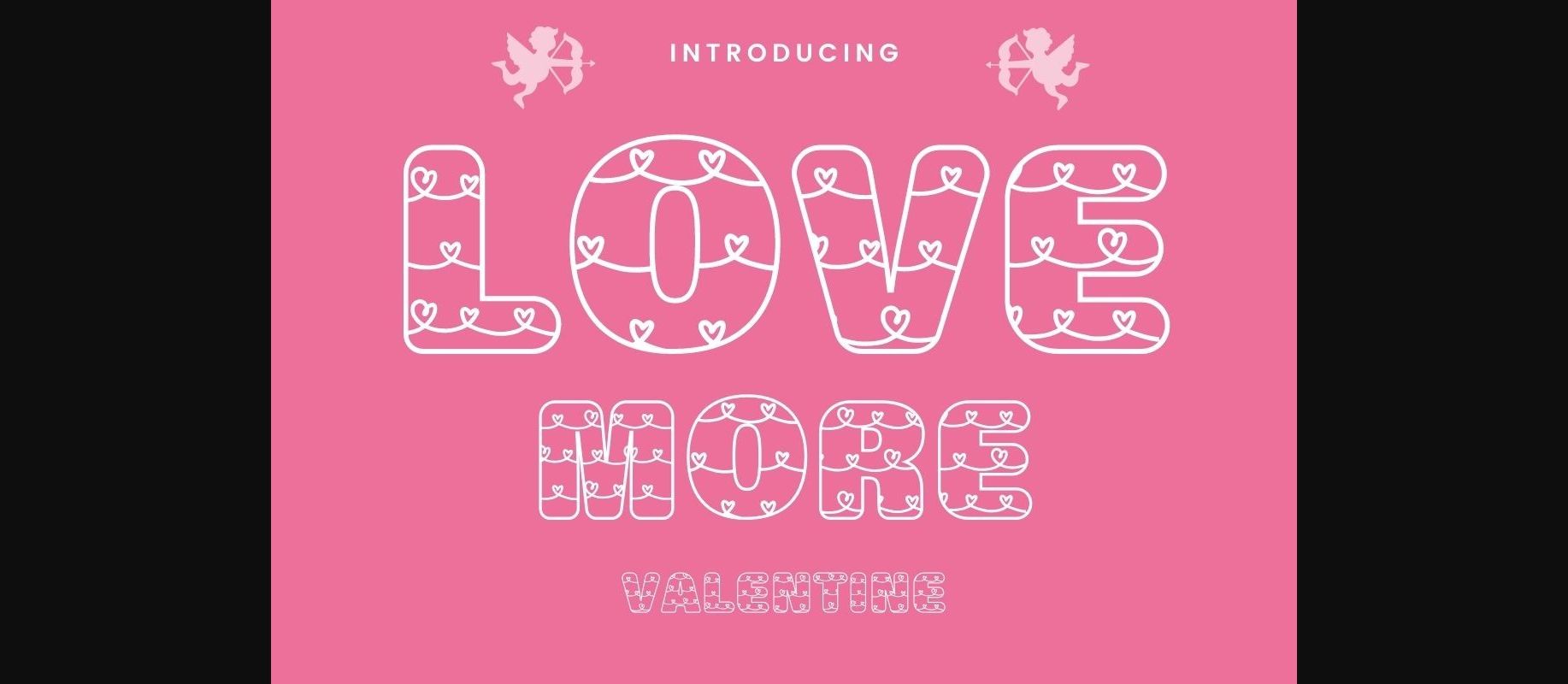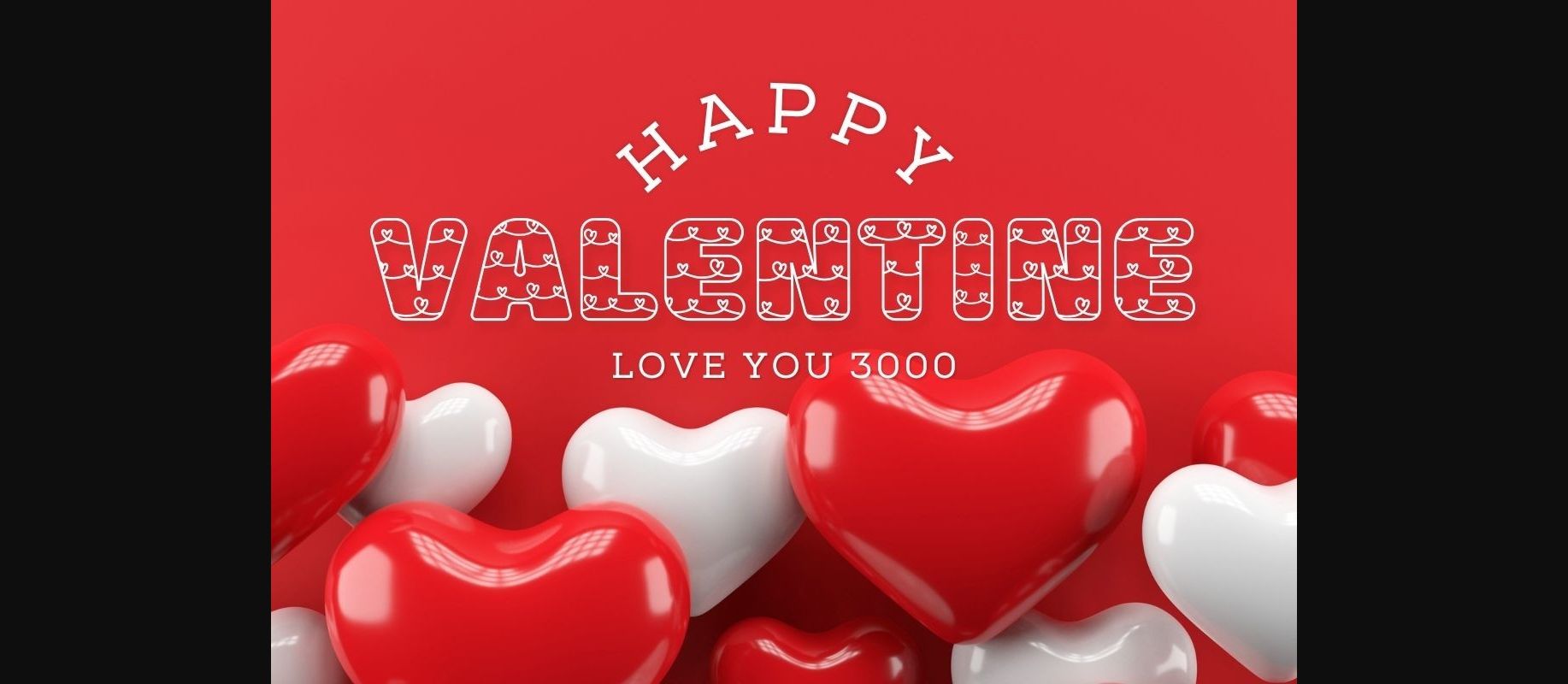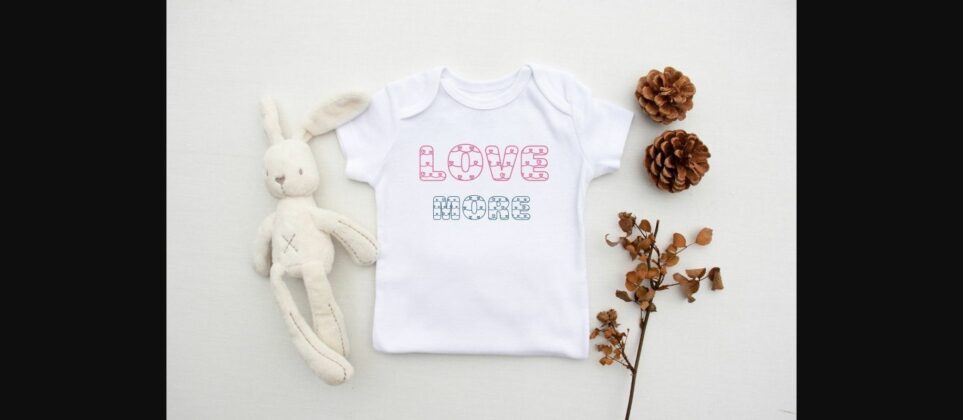
About Love More Font
Love More is a cute and friendly decorative font. Each letter features a tiny gnome next to it. This font is perfect for Valentine themed designs, and it’s perfect for designing t-shirts, mugs, and more.